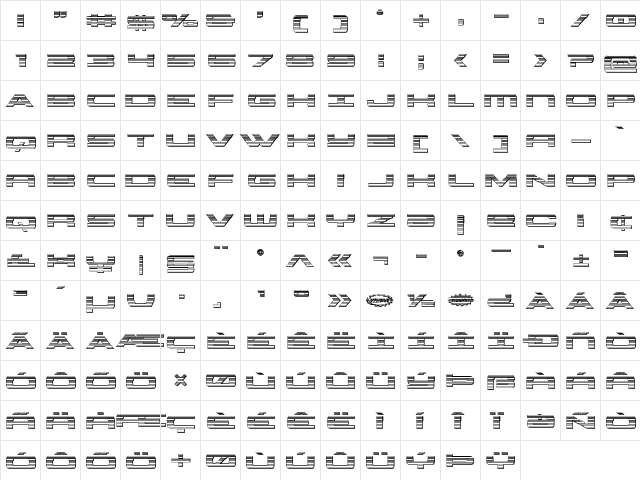
Classic Cobra Chrome Regular Font Preview
Classic Cobra Chrome Regular
Classic Cobra Chrome Regular Font Details
Design Context for Classic Cobra Chrome Typeface
Classic Cobra Chrome has the warm character of retro typography — evoking diners, record sleeves, and the golden age of print advertising.
Font Pairing: Combine Classic Cobra Chrome with a simple slab or neutral sans — period-accurate companions reinforce the vintage feel without competing for attention.
Pro Tip: Lean into Classic Cobra Chrome's period character by pairing it with aged paper textures, muted colour palettes, and vintage illustration styles.